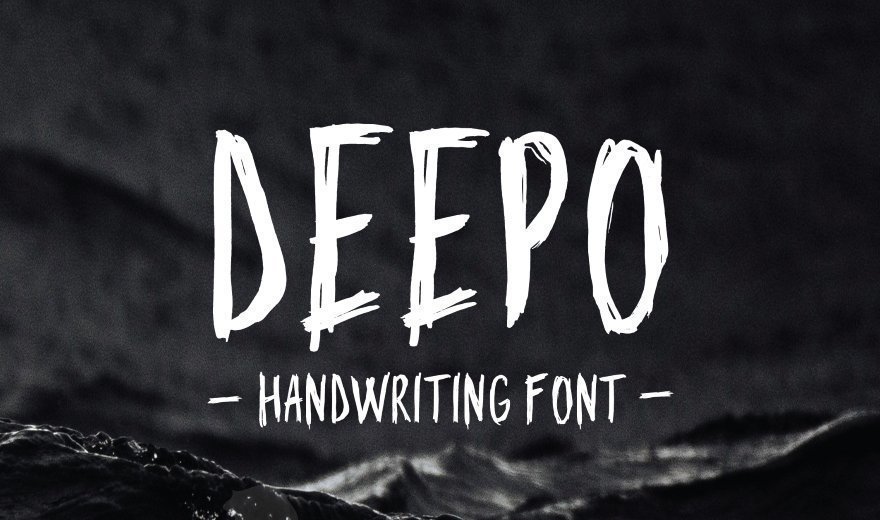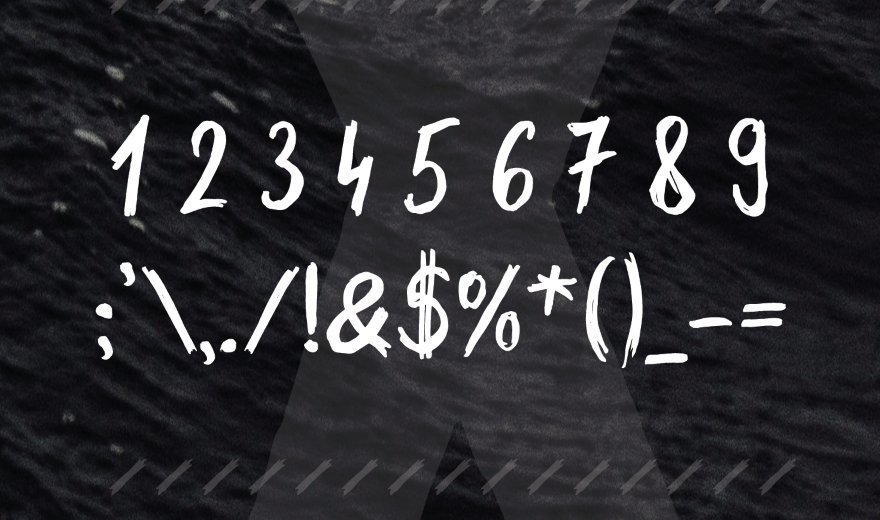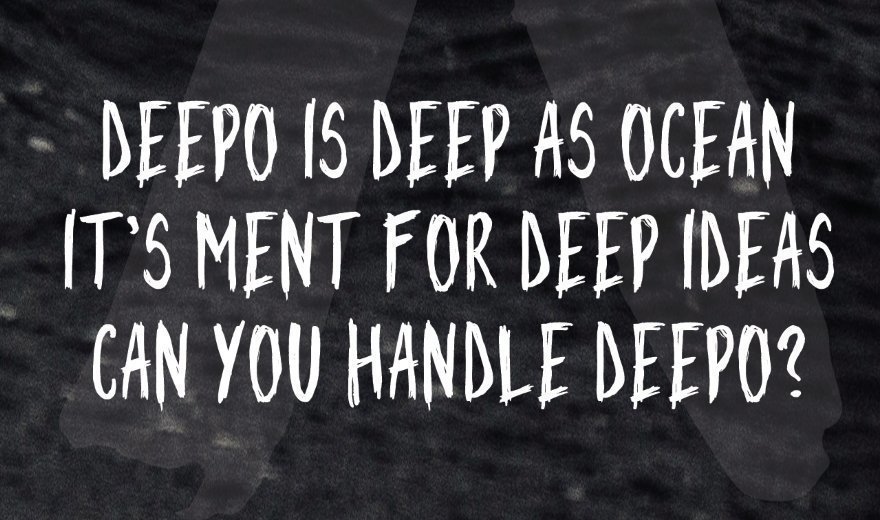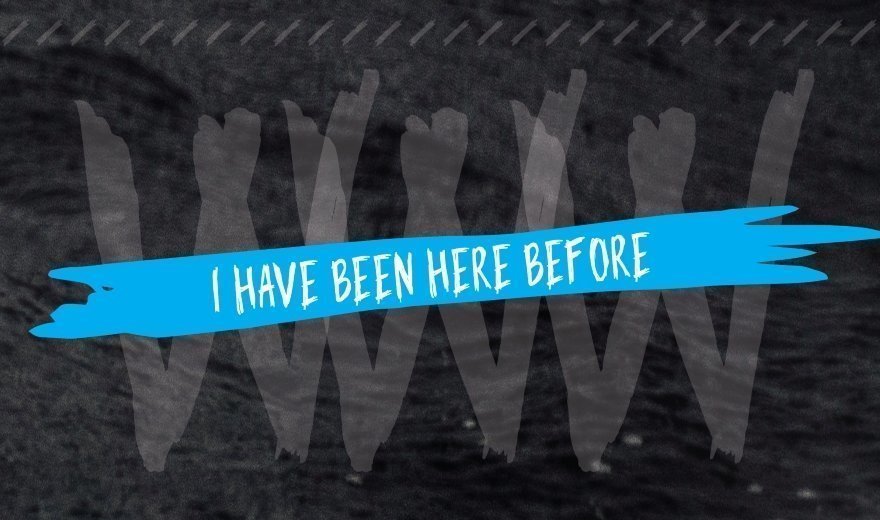
Deepo is a free handwriting font which can be used for a design of headlines or short descriptions. This free stylish font contains all the basic glyphs and characters of the Latin alphabet. This free display font features only uppercase symbols. Use Deepo for your next print or digital projects!